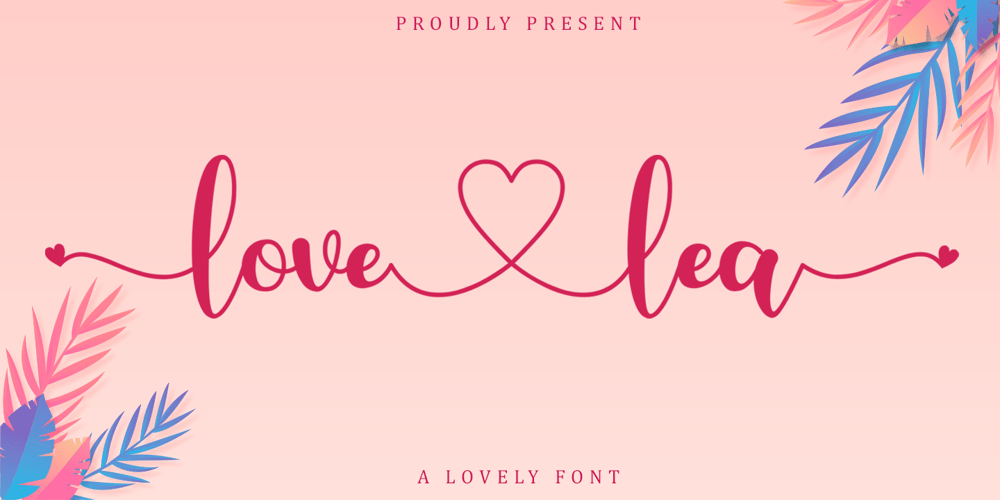
Love Lea Font Family was designed by Alif Ryan Zulfikar and published by Sakha Design. Love Lea contains 1 styles and family package options. Love Lea is a lovely calligraphy font.It has beautiful and well balanced characters and as a result, it matches a wide pool of designs. Add it to your most creative ideas and notice how it makes them come alive!This font is PUA encoded which means you can access all of the glyphs and swashes with ease